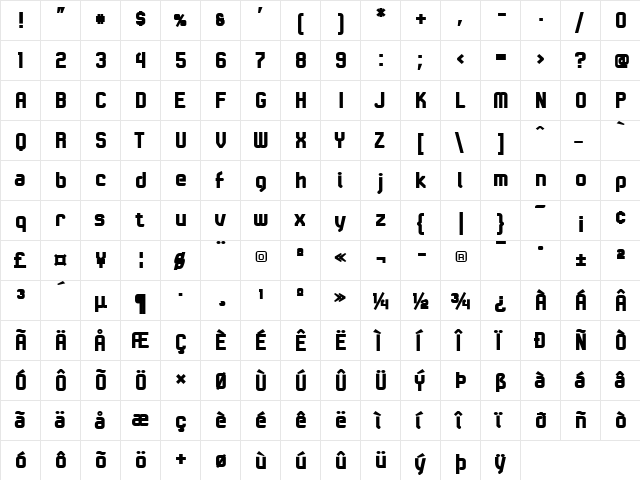
LTKaliber Black Regular
Design Context for LTKaliber Black Typeface
LTKaliber Black takes a measured approach to typography — its balanced proportions and neutral character make it a reliable workhorse for both digital and print work.